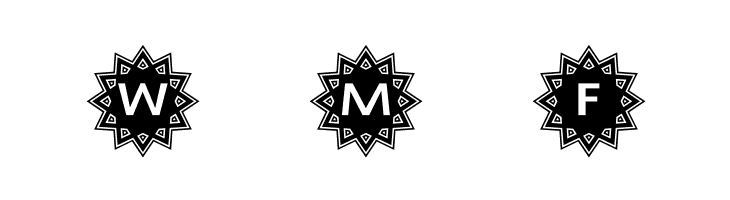
Sigma Five Marquee Bold Font
- Font: Sigma Five Marquee Bold
A decorative font with characters enclosed in starburst shapes, offering a bold and playful look.